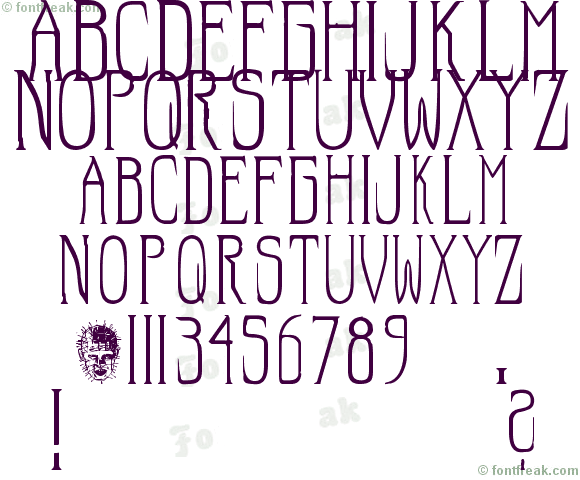
Hellraiser SC
About Hellraiser SC
Hellraiser SC by Norfok Inc. is a striking display font that captures attention with its distinctive gothic style. This font features sharp, angular serifs and a bold, dramatic appearance, making it ideal for projects that require an impactful visual statement. The stroke weight varies, providing a sense of depth and character while maintaining a consistent flow throughout the letters. The high contrast between thick and thin strokes adds to its unique aesthetic, creating an eye-catching look that draws the viewer in.
The Hellraiser SC font is perfect for a variety of creative applications. Its theatrical flair makes it an excellent choice for movie posters, especially those in the horror or fantasy genres, where an edgy, dramatic typography can enhance the overall design. Additionally, this font suits promotional materials for Halloween events, helping to evoke the right atmosphere. Graphic designers might also find it useful for designing album covers, particularly for rock or metal music, where bold, unconventional styles thrive. Restaurant menus that aim to create a unique dining experience can benefit from the font's distinctive character, setting the tone for a memorable meal. Small business owners seeking to create an unforgettable brand identity will find Hellraiser SC effective in logos and marketing materials.
What sets Hellraiser SC apart is its ability to blend artistic expression with functionality. Its bold presence and unique style make it a versatile choice for anyone looking to infuse their work with a sense of drama and originality, ensuring it stands out in any design context.